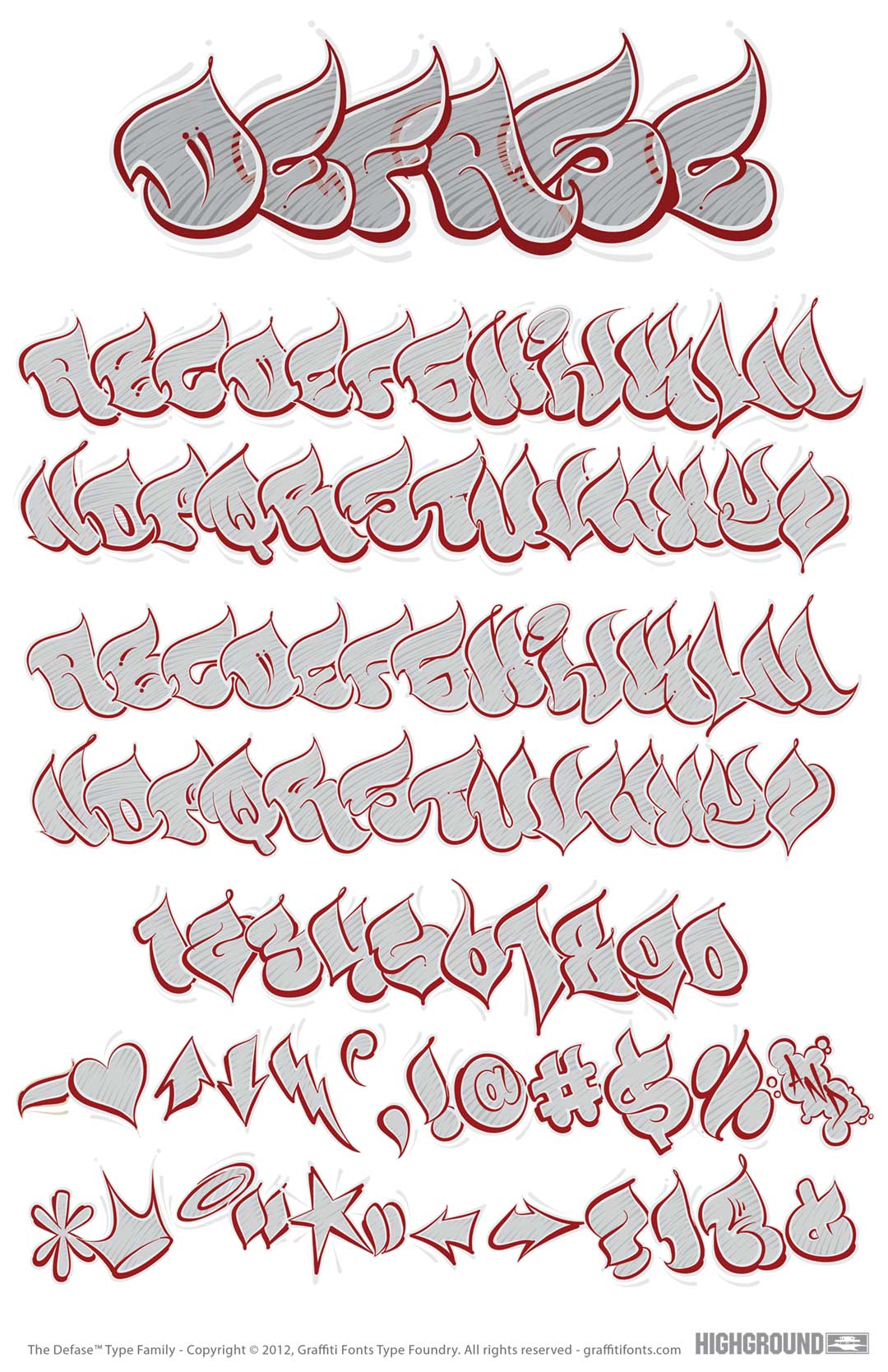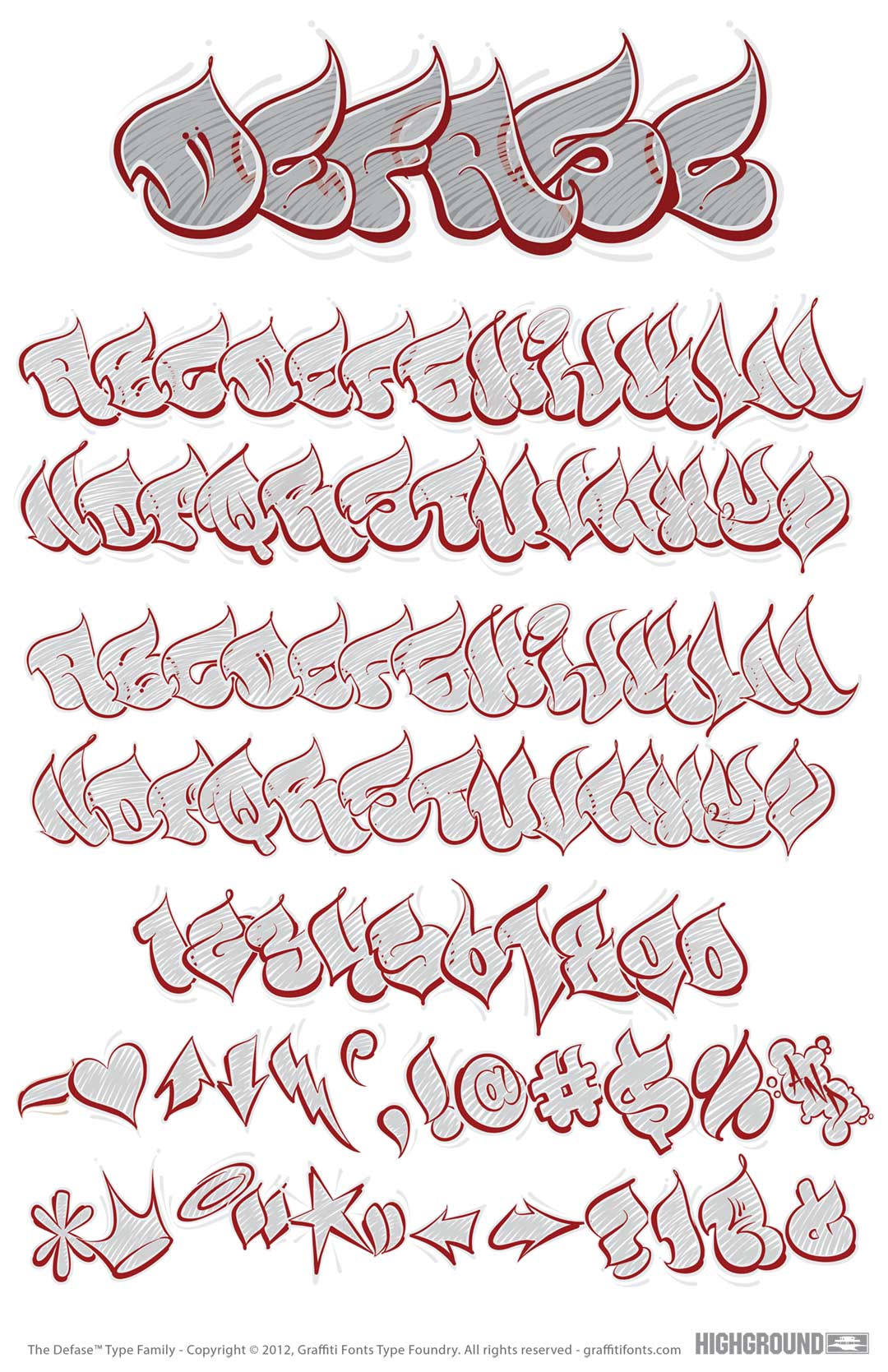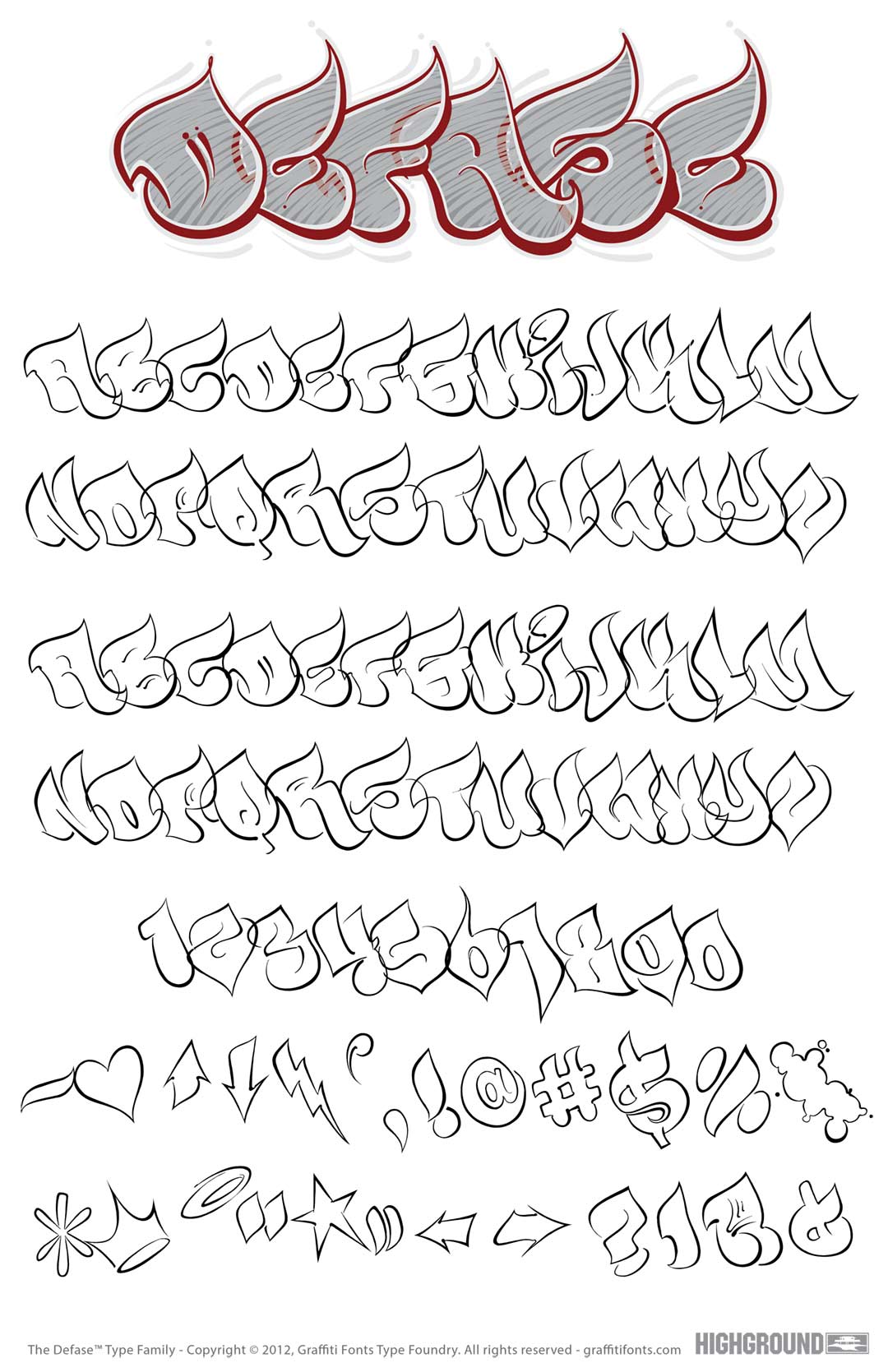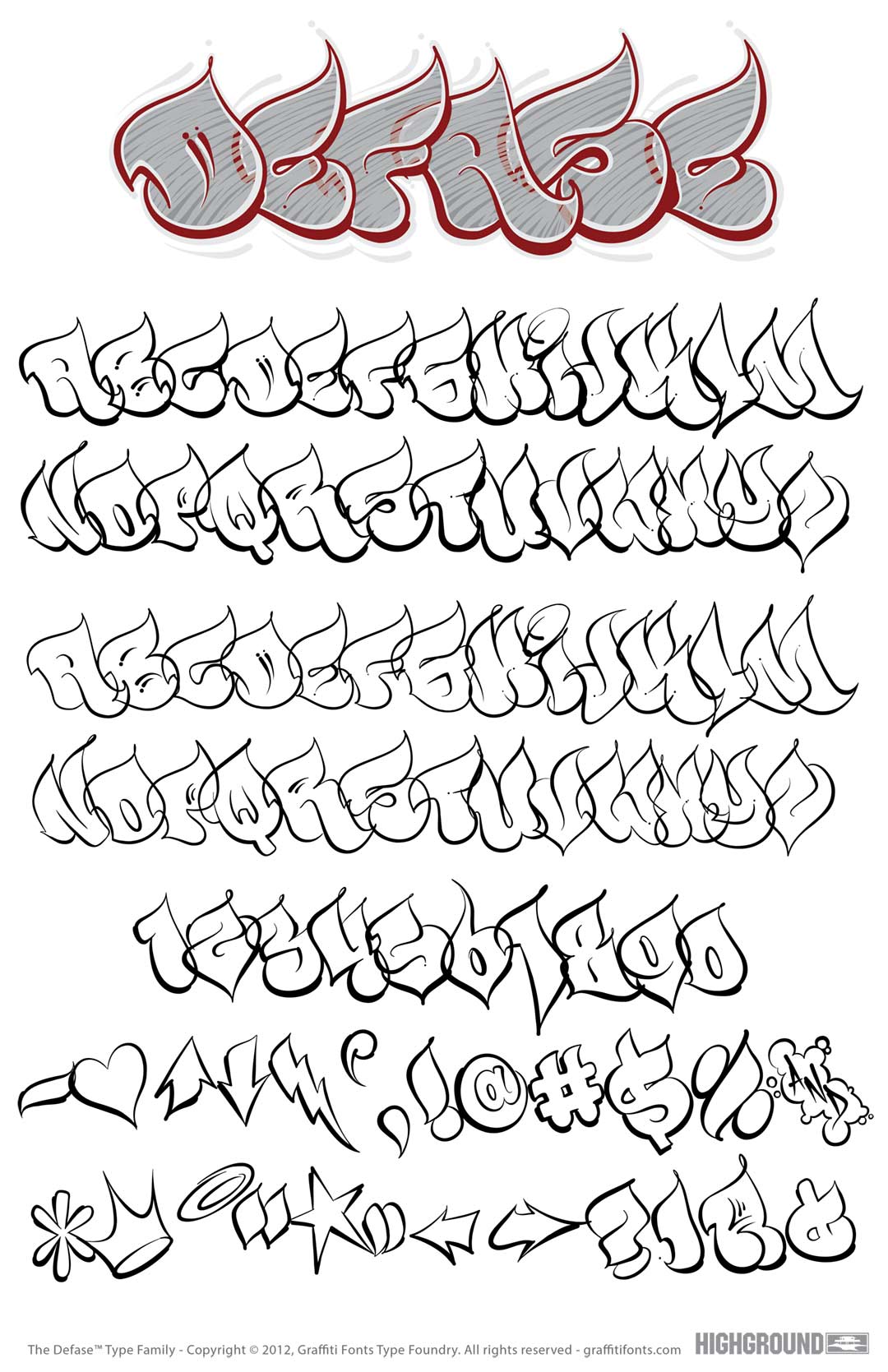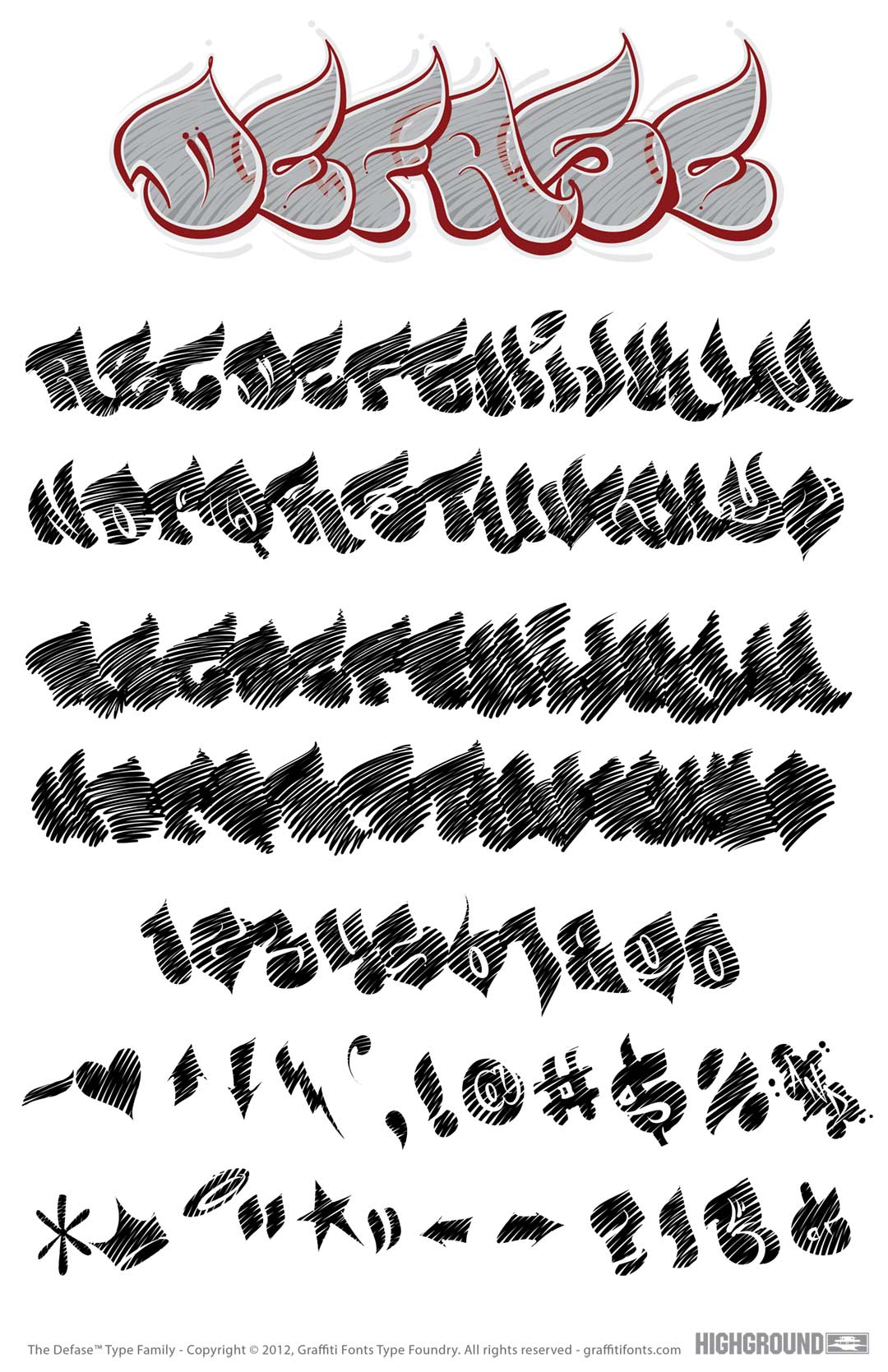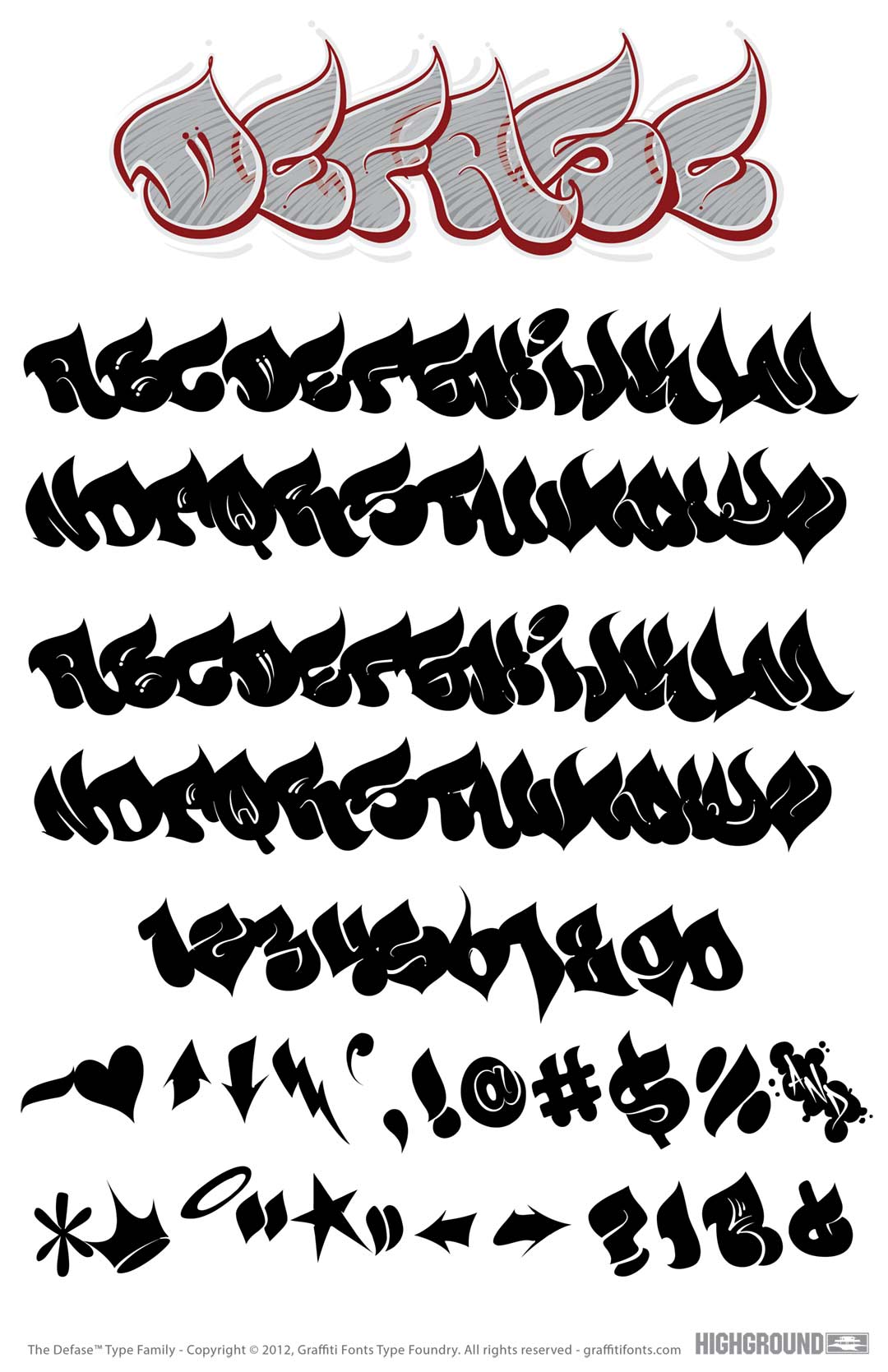
Defase Font
Defase Graffiti Alphabet
Defase Graffiti Font Family
Defase is a Throwie-style graffiti font set consisting of two color SVG fonts and five stackable fonts for outlines, solid fills, rough fills, outer outlines & inner outlines. The five styles can be layered in any order, allowing several possible variations of any design. Each style includes 2 alphabets, numbers and 26 common punctuation marks and symbols.